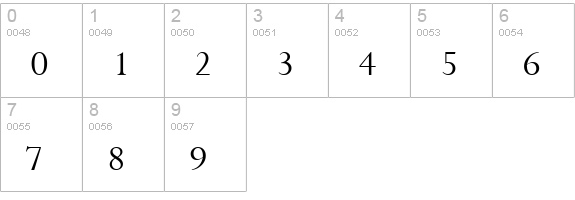
00216 Font Details
00216 font is a versatile and modern typeface that is perfect for a wide range of design projects. This elegant font features clean lines and a sleek appearance, making it suitable for both digital and print applications. With its timeless design and classic appeal, 00216 font adds a touch of sophistication to any project. Best of all, this font is available for free download at FontsMarket.com. Whether you're working on a branding project, creating a logo, designing a website, or crafting marketing materials, 00216 font is a fantastic choice that will elevate your designs to the next level. Download this unique and stylish font today and let your creativity shine!